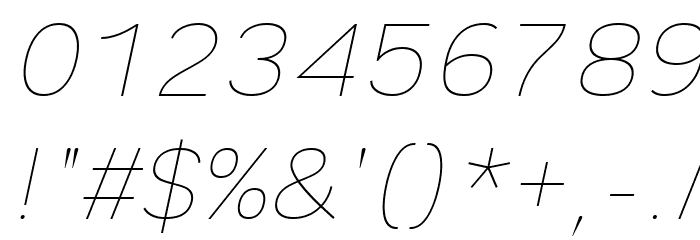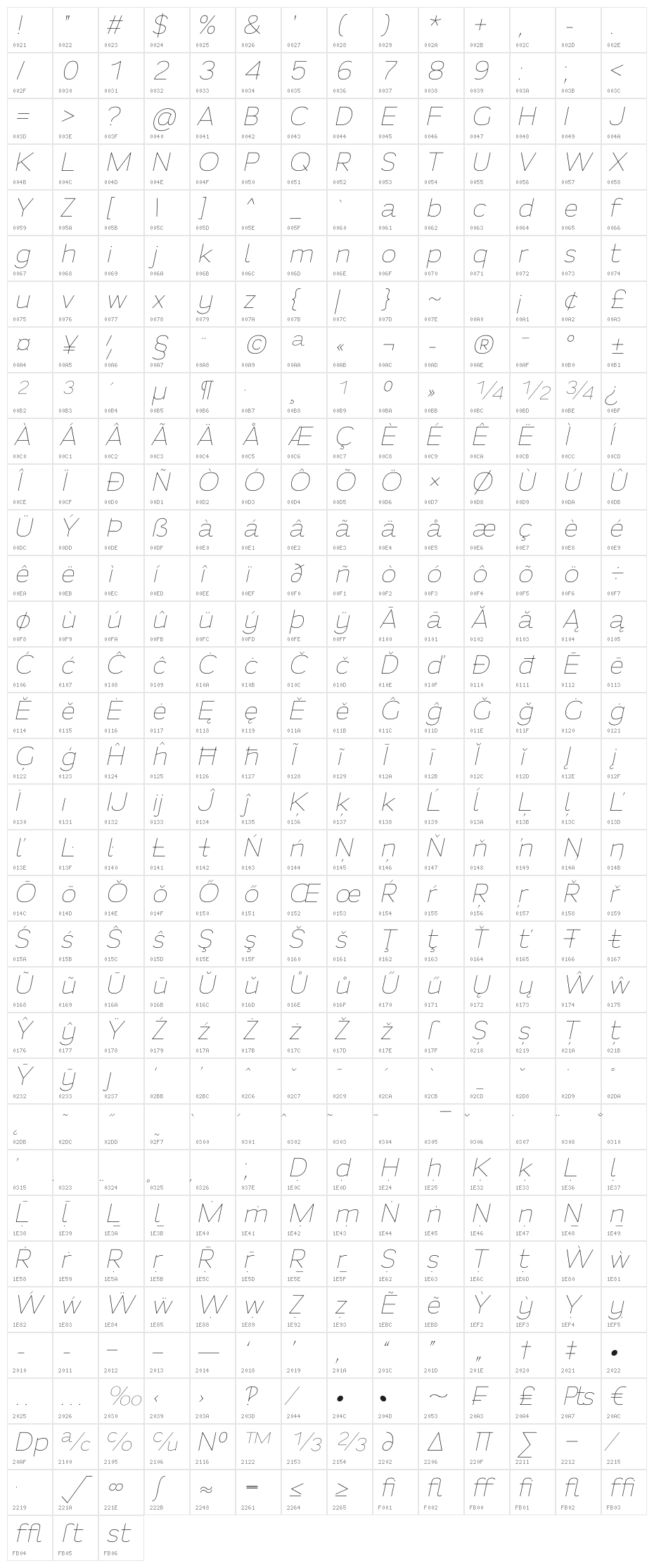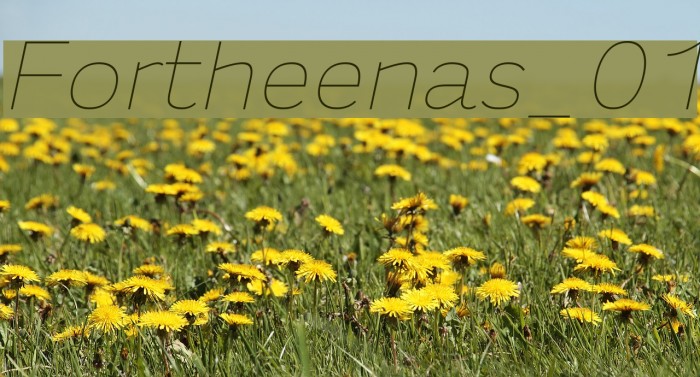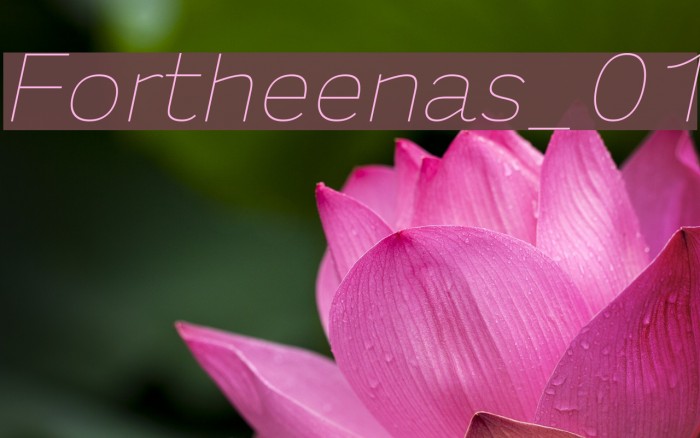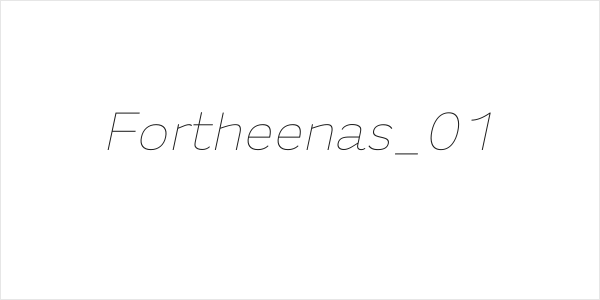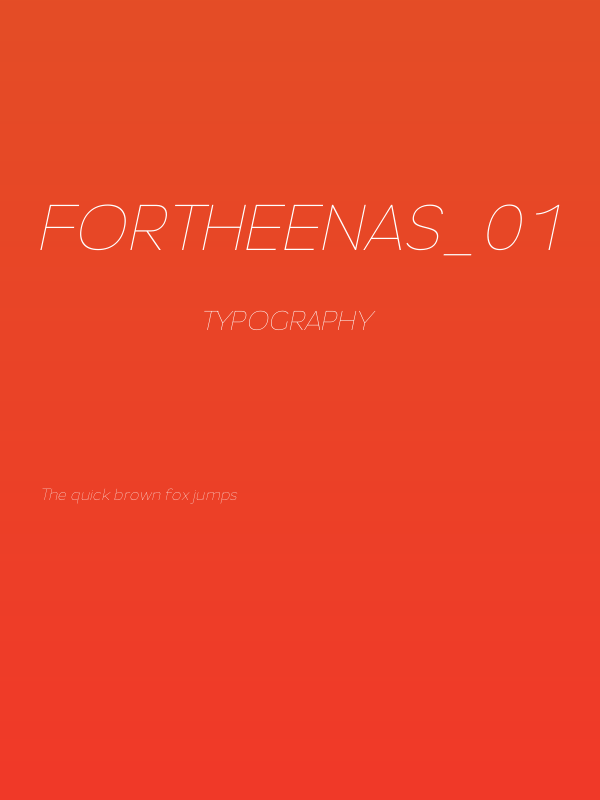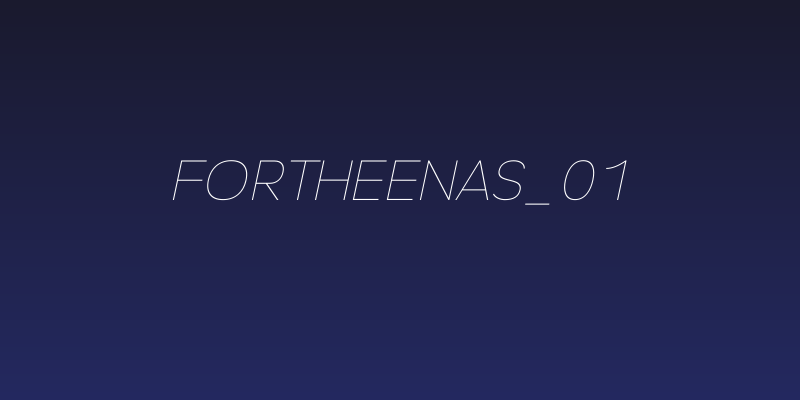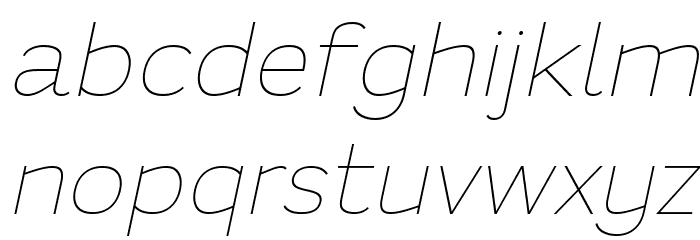
Fortheenas_01 Font
Fortheenas_01 Description
This font exhibits a sleek and modern aesthetic with clean, geometric lines. The characters are slightly condensed, giving it a streamlined appearance. The uppercase letters are tall and elegant, while the lowercase letters maintain a consistent flow with subtle curves. The numerals are proportional and align well with the overall style, enhancing readability. Special characters are designed with the same minimalist approach, ensuring uniformity across all glyphs. The font's thin strokes and uniform weight contribute to its sophisticated and contemporary look, making it suitable for a variety of design applications.
| Proposed Projects | Ideal for branding, editorial design, websites, and advertising where a modern and clean look is desired. |